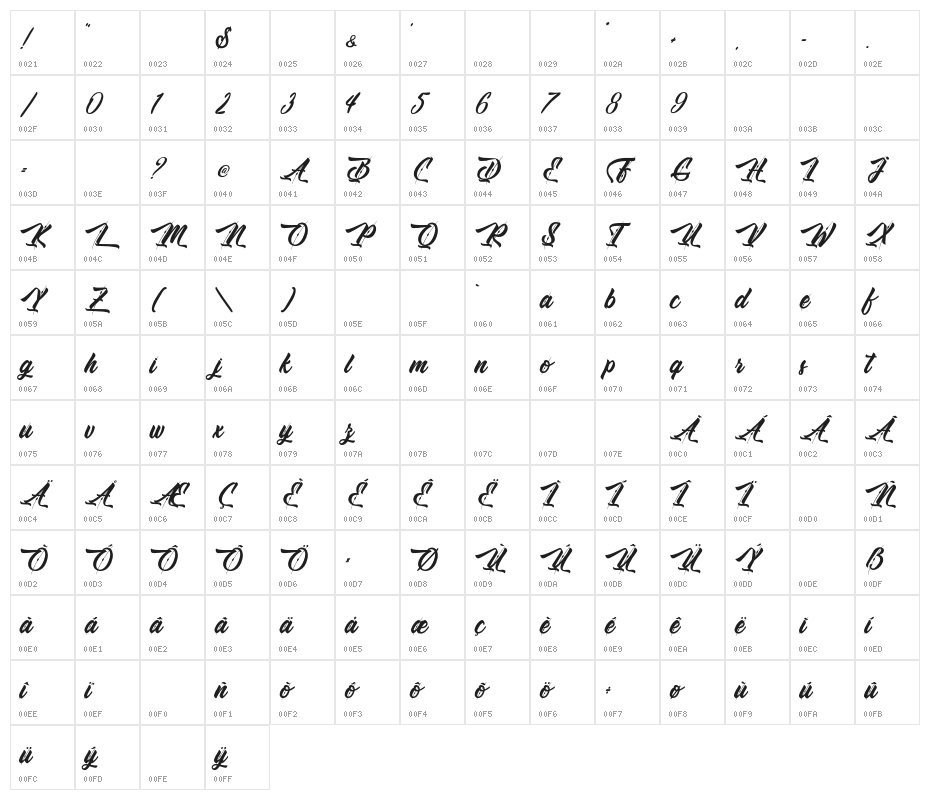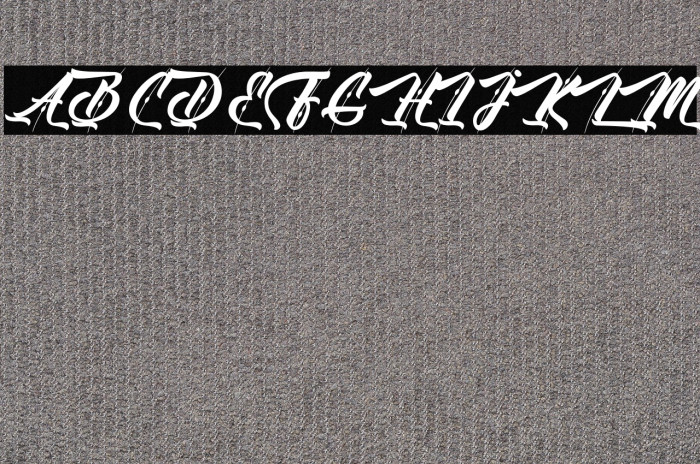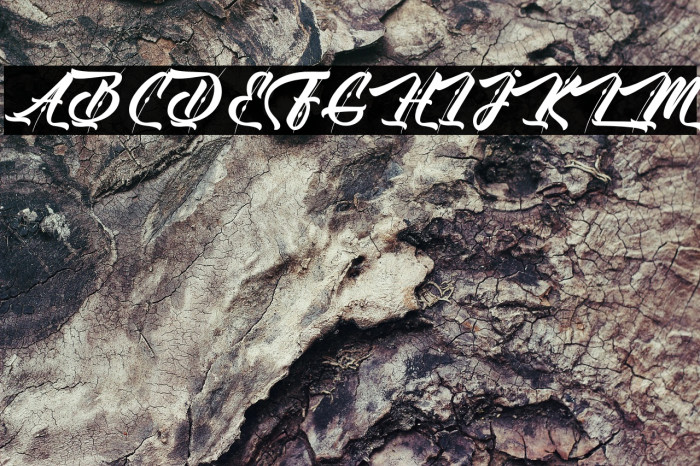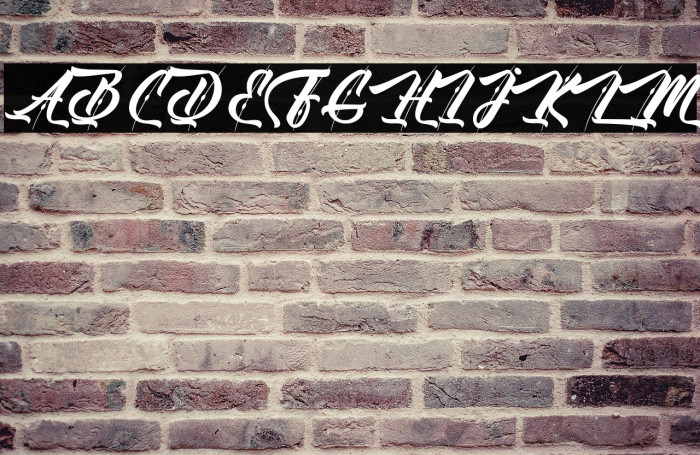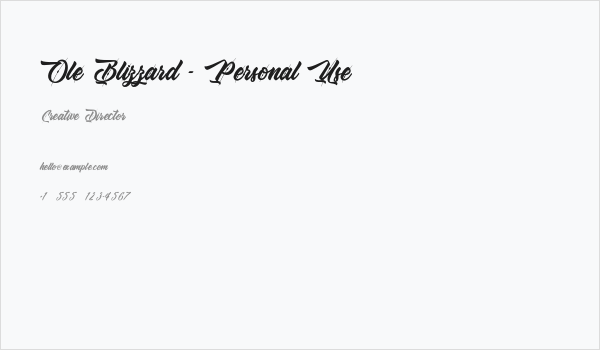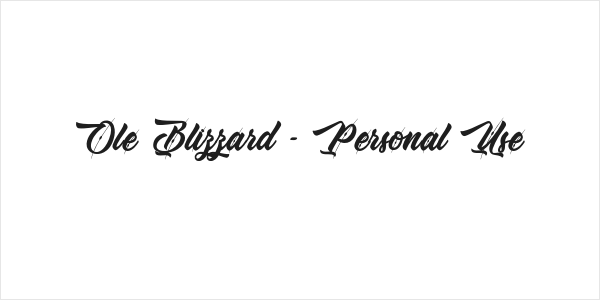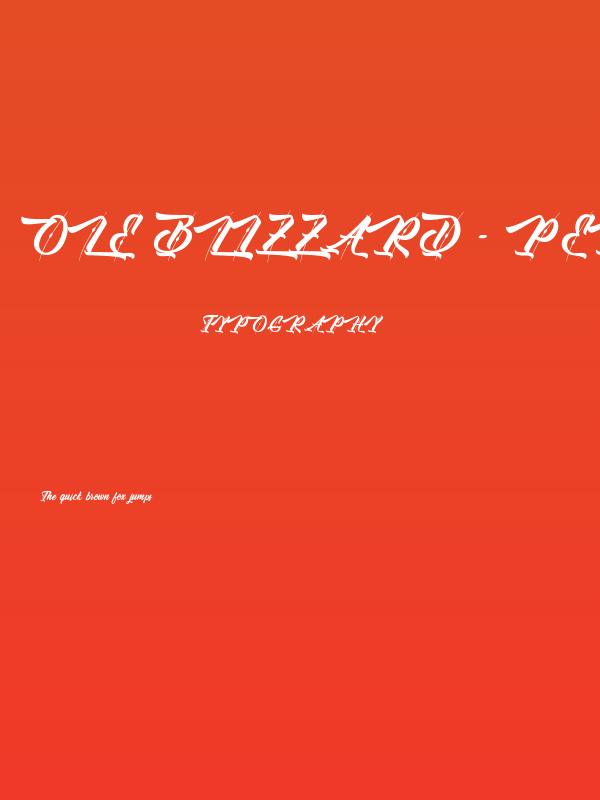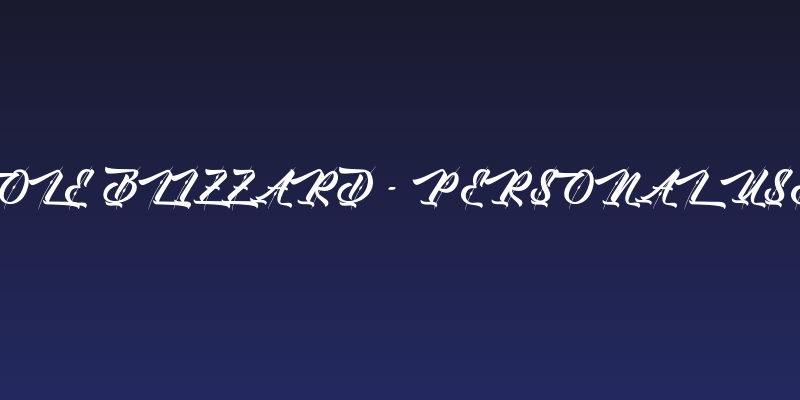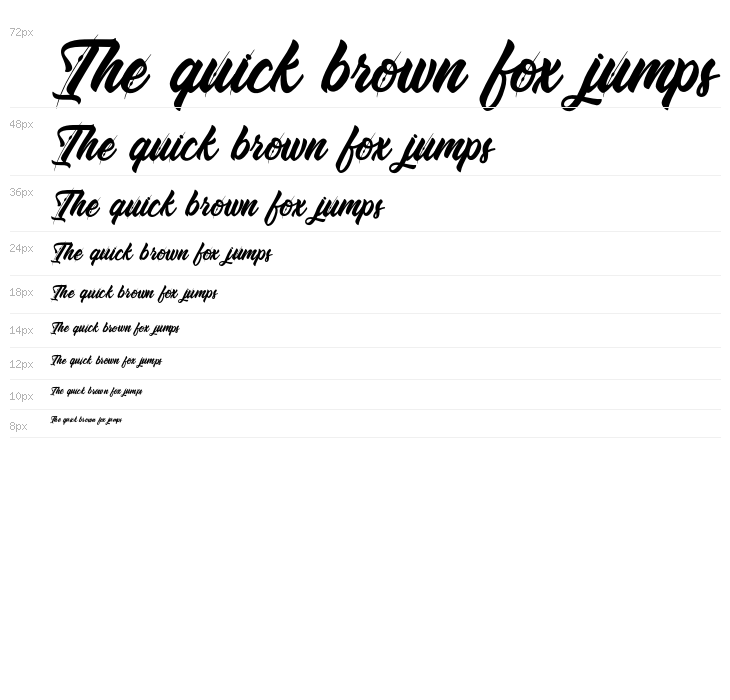
Ole Blizzard - Personal Use Font
Ole Blizzard - Personal Use Description
This font features a dynamic and elegant script style with a calligraphic flair. The uppercase letters are characterized by sweeping, dramatic strokes and intricate flourishes, giving them a sense of movement and sophistication. The lowercase letters maintain a consistent flow, with smooth, rounded forms that enhance readability while preserving the font's artistic nature. The numerals are designed with a similar attention to detail, offering a harmonious blend of style and clarity. Special characters are crafted to complement the overall aesthetic, ensuring versatility in various design contexts. The font's unique style makes it suitable for projects that require a touch of elegance and creativity.
| Proposed Projects | Ideal for wedding invitations, branding, greeting cards, and artistic posters. |